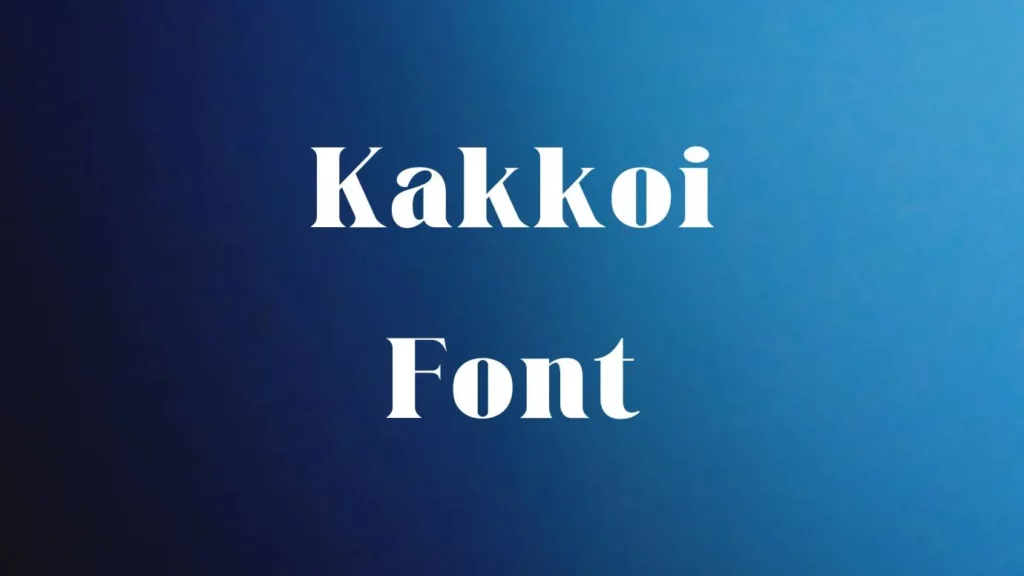
The Serif typeface Kakkoi Font was created by the renowned Sign Studios font foundry. The 2020s marked the debut of this typeface.
With its bold and contemporary texture features, this font was created in the font foundry by a number of designers. This font was carefully designed with a forgiving fantastic look.
| Name | Kakkoi Font |
| Style | Serif |
| Designer | Sign Studios font foundry |
Who created the Kakkoi Font?
This font was created by Sign Studios for the first time and is a member of the font family's serif typefaces. This typeface is compatible with numerous foreign languages.
Which font comes closest to the Kakkoi Font?
Although Minion Font and Galliard Font are among the closest serif typefaces to this one, they offer the most alternatives.